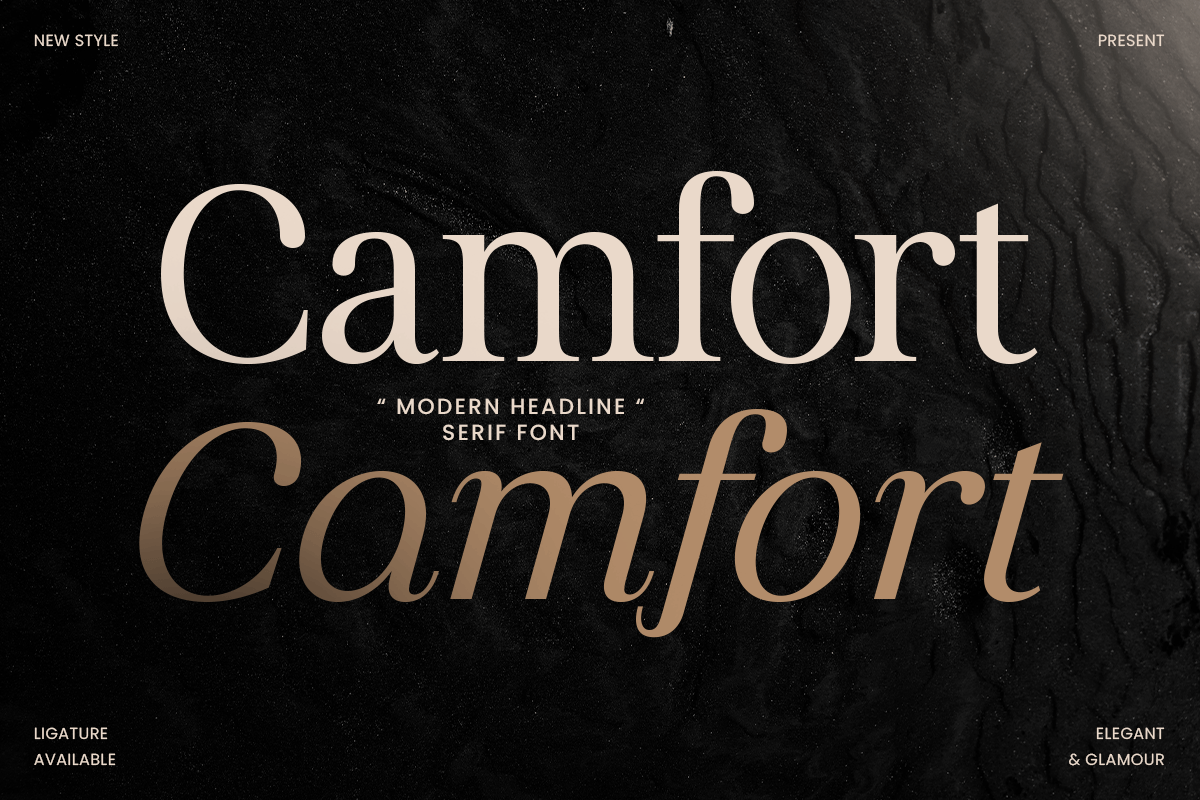
Camfort
-Modern Headline Serif Font
Camfort - Modern Headline Serif Font
Camfort is a modern headline serif font crafted to deliver bold elegance with a refined contemporary presence. With polished serif details, balanced proportions, and a confident visual rhythm, this typeface creates a premium tone that feels stylish, sophisticated, and instantly attention-grabbing.
Designed for high-impact typography, Camfort works beautifully across editorial headlines, magazine covers, logos, wordmarks, website headers, posters, packaging, labels, presentations, and upscale marketing visuals. Its headline-focused structure keeps every composition sharp and readable, making it ideal for both digital and print layouts that need elegance with strong visual authority.
Whether you’re building a fashion identity, designing premium editorial spreads, creating luxurious packaging, or crafting modern brand campaigns, Camfort provides a serif foundation that makes your typography feel polished, expressive, and unmistakably premium.
Inspiration Behind Camfort
Camfort is inspired by contemporary editorial typography and modern serif branding—where elegance, structure, and visual hierarchy define premium communication. The design focuses on refined serif contrast and bold headline presence to support stylish identities and sophisticated layouts with a timeless modern edge.
Camfort Font Features:
• Modern serif letterforms optimized for headline and branding design
• Elegant structure with strong visual impact for titles and covers
• High readability for editorials, posters, and premium layouts
• Editorial headlines, magazine covers, and title typography
• Logos, wordmarks, and premium brand identity systems
• Fashion branding, boutique visuals, and upscale campaigns
• Packaging, labels, posters, and elegant promotional layouts
• Social media graphics, websites, and modern marketing assets
Make every headline stand out with Camfort—a modern serif font crafted for elegant, premium visual impact. ✨